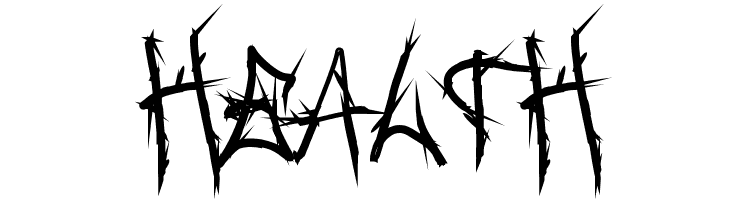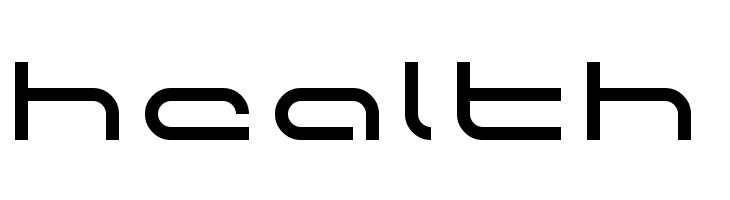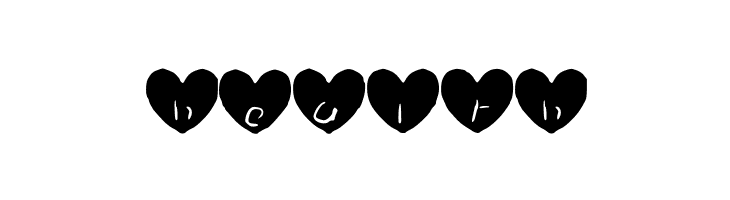
A playful, bold, and hand-drawn style font with rounded strokes.
A bold, edgy font with sharp, jagged strokes and a rebellious style.
A sleek, modern font with geometric and minimalistic design.
A bold, outlined font with a playful and cartoonish style.
A bold, distressed font with a rugged, vintage appearance.
A decorative font with star-adorned characters and a whimsical style.
A playful, whimsical handwritten font with tall, narrow letters.
A decorative font with characters enclosed in heart shapes, offering a playful and romantic style.
A whimsical font with characters inside heart shapes, ideal for romantic and playful designs.
A playful, heart-encased decorative font with a bold, hand-drawn style.